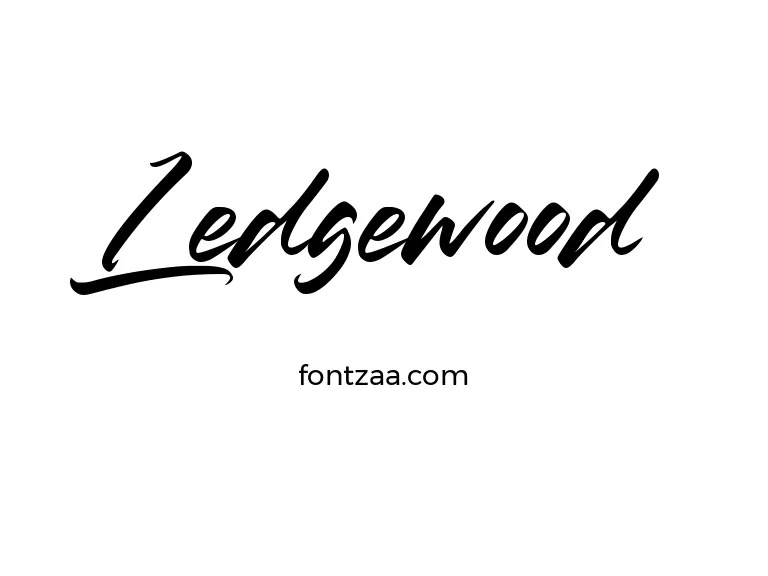
Ledgewood Font offers expressive lettering for designers looking for a elegant visual direction. With its distinctive letterforms, Ledgewood Font can introduce a elegant character into creative display work. The font can work as the primary visual element in a minimal layout or as part of a more detailed composition. Different color combinations can make the same font feel subtle, energetic, premium or highly decorative. Using generous space around the lettering can help the details of the typeface remain visible instead of competing with other elements. Creative uses may range from invitations, wedding stationery, signatures, quotes and elegant branding, with different results depending on scale and layout. Previewing the final layout on both large and small screens helps identify spacing and readability problems early. Designers should evaluate the typeface inside the real project because a standalone preview cannot show every possible visual combination. The available source information lists Unknown Publisher as the designer or publisher. Current license information is shown as Free for personal use; checking the original documentation is recommended before client or commercial work. Experimenting directly in the intended design is usually the best way to judge whether the typeface suits the project.
For projects that need typography with a stronger identity, Ledgewood Font offers a elegant direction suited to headlines, branding and promotional layouts. Different color combinations can make the same font feel subtle, energetic, premium or highly decorative. Testing several arrangements before choosing the final version can reveal which characteristics of the typeface work best. Its letter shapes become especially noticeable at larger sizes, where spacing and proportions can be explored more clearly. Creative uses may range from invitations, wedding stationery, signatures, quotes and elegant branding, with different results depending on scale and layout. Designers should evaluate the typeface inside the real project because a standalone preview cannot show every possible visual combination. For layouts containing longer information, pairing it with a simpler supporting typeface can improve readability and hierarchy. The designer or publisher information available for this typeface is Unknown Publisher. Current license information is shown as Free for personal use; checking the original documentation is recommended before client or commercial work. A few quick layout variations can help determine where the font creates the strongest visual result.
Ledgewood Font brings a elegant personality to typography and gives designers a flexible starting point for digital and print projects. The typeface can change considerably depending on tracking, scale, alignment, background and surrounding imagery. Using generous space around the lettering can help the details of the typeface remain visible instead of competing with other elements. Different color combinations can make the same font feel subtle, energetic, premium or highly decorative. Possible applications include invitations, wedding stationery, signatures, quotes and elegant branding. Keeping secondary typography simple often allows the distinctive qualities of the main font to remain more visible. Print and digital layouts may require different sizing and spacing, so testing the actual output dimensions is recommended. The available source information lists Unknown Publisher as the designer or publisher. The listed license is Free for personal use, although users should still review the original font package before commercial use. Its final appearance will depend heavily on the surrounding colors, imagery, spacing and supporting typography.
Ledgewood Font Family
Within the Ledgewood Font Family, even a single available style can produce many different visual treatments through scale, tracking and layout choices. The visual character of Ledgewood Font makes it an interesting choice for designers working on font-family exploration. Testing several arrangements before choosing the final version can reveal which characteristics of the typeface work best. Its letter shapes become especially noticeable at larger sizes, where spacing and proportions can be explored more clearly. Different color combinations can make the same font feel subtle, energetic, premium or highly decorative. Designers may explore it across invitations, wedding stationery, signatures, quotes and elegant branding, depending on the tone and requirements of the project. For layouts containing longer information, pairing it with a simpler supporting typeface can improve readability and hierarchy. Designers should evaluate the typeface inside the real project because a standalone preview cannot show every possible visual combination. Source metadata currently associates the font with Unknown Publisher. License details are currently listed as Free for personal use. Users should verify the supplied documentation before using the font in products or paid projects. The most effective treatment will vary by project, so designers should compare several versions before finalizing the artwork.
Ledgewood Font brings a elegant personality to typography and gives designers a flexible starting point for discovering alternatives and related typography. Its letter shapes become especially noticeable at larger sizes, where spacing and proportions can be explored more clearly. The typeface can change considerably depending on tracking, scale, alignment, background and surrounding imagery. Testing several arrangements before choosing the final version can reveal which characteristics of the typeface work best. Creative uses may range from invitations, wedding stationery, signatures, quotes and elegant branding, with different results depending on scale and layout. Designers should evaluate the typeface inside the real project because a standalone preview cannot show every possible visual combination. Print and digital layouts may require different sizing and spacing, so testing the actual output dimensions is recommended. Source metadata currently associates the font with Unknown Publisher. The available licensing label is Free for personal use, but redistribution and commercial permissions should always be confirmed from the original source. Experimenting directly in the intended design is usually the best way to judge whether the typeface suits the project. Explore more typography on Fontzaa or browse the 100% Free Fonts collection.
Ledgewood Font Features
With its distinctive letterforms, Ledgewood Font can introduce a elegant character into the visual characteristics and design personality of the typeface. Its letter shapes become especially noticeable at larger sizes, where spacing and proportions can be explored more clearly. The font can work as the primary visual element in a minimal layout or as part of a more detailed composition. The typeface can change considerably depending on tracking, scale, alignment, background and surrounding imagery. The font can be considered for projects such as invitations, wedding stationery, signatures, quotes and elegant branding. Keeping secondary typography simple often allows the distinctive qualities of the main font to remain more visible. Designers should evaluate the typeface inside the real project because a standalone preview cannot show every possible visual combination. The available source information lists Unknown Publisher as the designer or publisher. License details are currently listed as Free for personal use. Users should verify the supplied documentation before using the font in products or paid projects. Experimenting directly in the intended design is usually the best way to judge whether the typeface suits the project.
Choosing Supporting Fonts for Ledgewood Font
Designers exploring a elegant typeface can use Ledgewood Font to add a more recognizable visual voice to combining the display font with supporting typefaces. The font can work as the primary visual element in a minimal layout or as part of a more detailed composition. Different color combinations can make the same font feel subtle, energetic, premium or highly decorative. The typeface can change considerably depending on tracking, scale, alignment, background and surrounding imagery. The font can be considered for projects such as invitations, wedding stationery, signatures, quotes and elegant branding. Print and digital layouts may require different sizing and spacing, so testing the actual output dimensions is recommended. For layouts containing longer information, pairing it with a simpler supporting typeface can improve readability and hierarchy. According to the available font information, the typeface is associated with Unknown Publisher. Current license information is shown as Free for personal use; checking the original documentation is recommended before client or commercial work. Its final appearance will depend heavily on the surrounding colors, imagery, spacing and supporting typography.
Branding Ideas With Ledgewood Font
For projects that need typography with a stronger identity, Ledgewood Font offers a elegant direction suited to logos, wordmarks and visual identity systems. Its letter shapes become especially noticeable at larger sizes, where spacing and proportions can be explored more clearly. The typeface can change considerably depending on tracking, scale, alignment, background and surrounding imagery. Using generous space around the lettering can help the details of the typeface remain visible instead of competing with other elements. The font can be considered for projects such as invitations, wedding stationery, signatures, quotes and elegant branding. For layouts containing longer information, pairing it with a simpler supporting typeface can improve readability and hierarchy. Print and digital layouts may require different sizing and spacing, so testing the actual output dimensions is recommended. The available source information lists Unknown Publisher as the designer or publisher. License details are currently listed as Free for personal use. Users should verify the supplied documentation before using the font in products or paid projects. The most effective treatment will vary by project, so designers should compare several versions before finalizing the artwork.
With its distinctive letterforms, Ledgewood Font can introduce a elegant character into licensing, commercial use and redistribution considerations. Its letter shapes become especially noticeable at larger sizes, where spacing and proportions can be explored more clearly. Different color combinations can make the same font feel subtle, energetic, premium or highly decorative. Using generous space around the lettering can help the details of the typeface remain visible instead of competing with other elements. Possible applications include invitations, wedding stationery, signatures, quotes and elegant branding. For layouts containing longer information, pairing it with a simpler supporting typeface can improve readability and hierarchy. Keeping secondary typography simple often allows the distinctive qualities of the main font to remain more visible. According to the available font information, the typeface is associated with Unknown Publisher. License details are currently listed as Free for personal use. Users should verify the supplied documentation before using the font in products or paid projects. Experimenting directly in the intended design is usually the best way to judge whether the typeface suits the project.